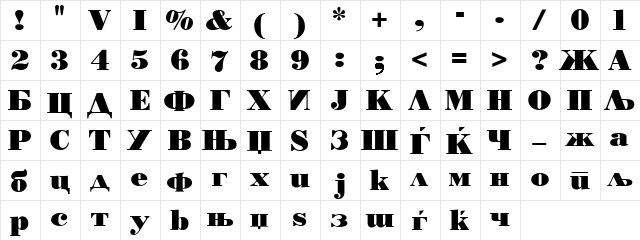
C_Bodoni_Kir Bold
Design Context for C_Bodoni_Kir Typeface
C_Bodoni_Kir is a composed and adaptable typeface that performs quietly and consistently across a wide range of design contexts. Its bold stroke weight gives it real presence on the page.